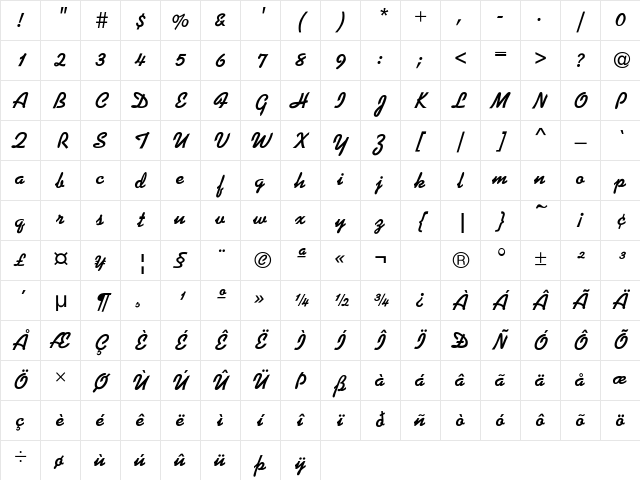
Complete KaufmannBold-Bold Regular glyph index. Displaying only characters natively supported by KaufmannBold-Bold Regular font.
KaufmannBold-Bold is a composed and adaptable typeface that performs quietly and consistently across a wide range of design contexts. Its bold stroke weight gives it real presence on the page.